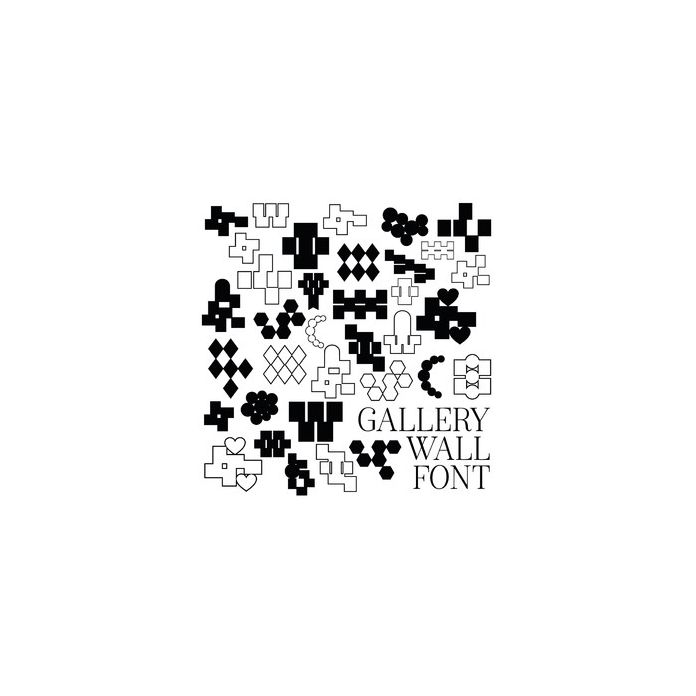
Gallery Wall Font - With 26 Solid Background Configurations and 26 Coordinating Frame Arrangements allocated to upper and lower case letters - Perfect for use alone or with the coordinating Gallery Basics font to create home decor, scrapbook pages and more.